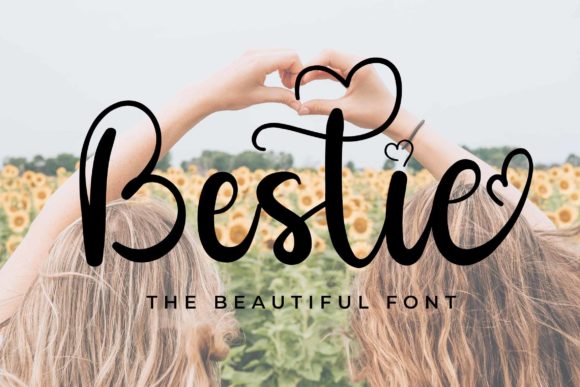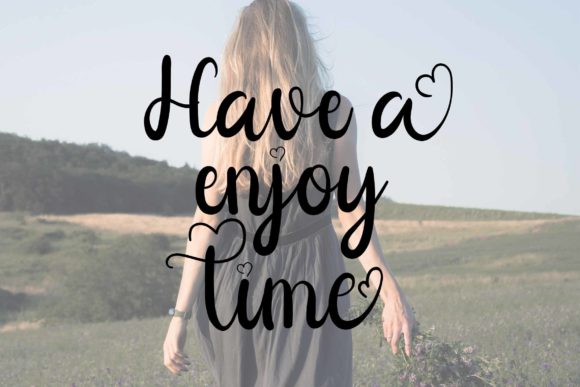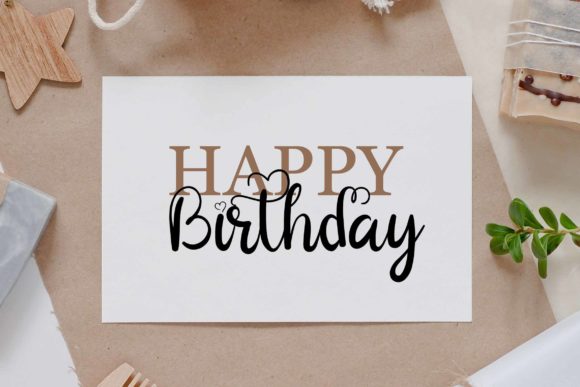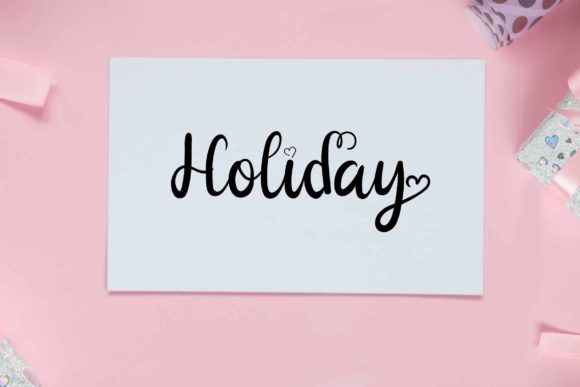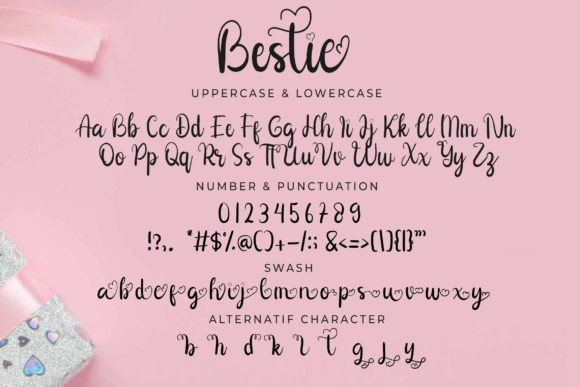
About Bestie Font
Bestie is a charming and enchanting script font that exudes sweetness, romance, and beauty with its graceful and flowing letterforms. Every curve and stroke is carefully crafted to create a sense of elegance and warmth, making it the perfect choice for a wide range of design projects.
The delicate and intricate nature of Bestie’s characters adds a touch of romance to any text, whether it’s used for wedding invitations, love letters, greeting cards, quotes, or branding materials. Its soft and inviting appearance captures the essence of heartfelt emotions, making it an ideal option for conveying messages of love and affection.
One of the standout features of Bestie is its PUA encoding, which allows you to access all the glyphs and swashes with ease. This feature empowers you to customize your text and add special touches such as decorative swashes, ligatures, and alternate characters. Whether you’re embellishing initials or enhancing the overall aesthetic of your design, the PUA encoding ensures a seamless and creative experience.
The captivating curves and smooth connections between letters in Bestie create a harmonious flow that is both pleasing to the eye and inviting to the reader. Its balanced design maintains a sense of coherence while allowing for artistic expression, making it a versatile font that suits a variety of creative styles and themes.
Bestie’s romantic and beautiful script style makes it a versatile choice for a wide array of design applications. Its ability to evoke emotions and create a sense of intimacy makes it well-suited for personal projects, while its elegant and sophisticated appearance lends itself to professional branding and marketing materials.
In summary, Bestie is a sweet, romantic, and beautiful script font that captures the essence of love, beauty, and elegance. Its PUA encoding and carefully crafted design provide you with the tools to create stunning and personalized text that resonates with your audience. Whether you’re expressing sentiments of love or adding a touch of sophistication to your designs, Bestie is a font that embodies charm and enchantment.